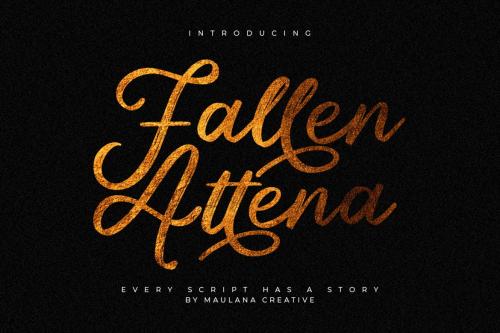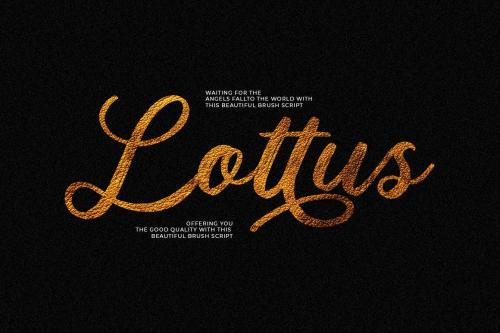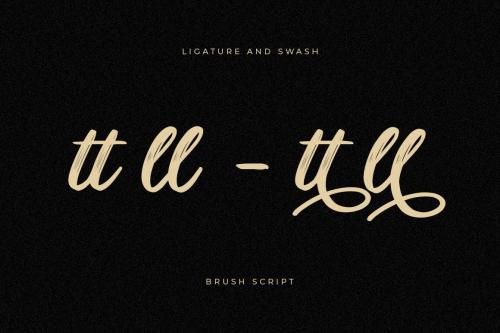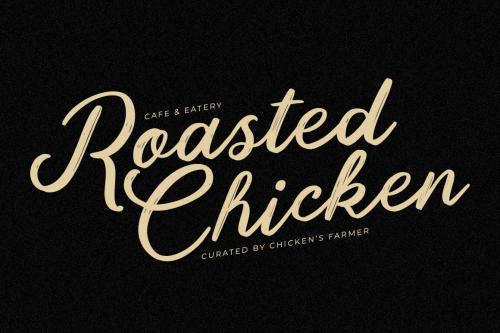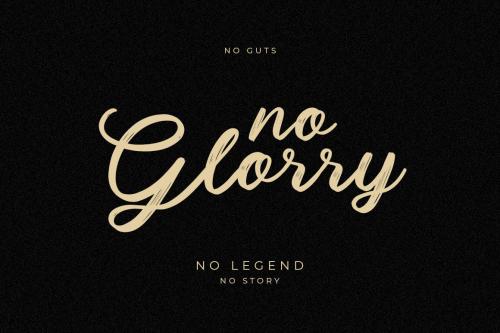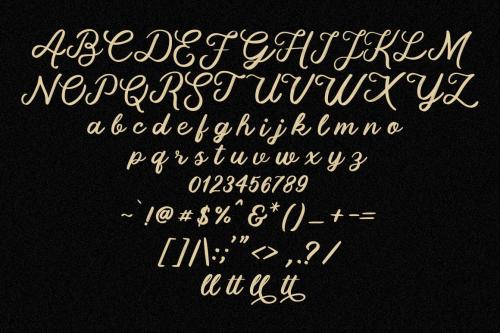
fallen atena - 刷字Font
Fallen Attena - Brush Font
Give your designs an authentic brush handcrafted feel. "Fallen Attena - Brush Font" is perfectly suited to signature, stationery, logo, typography quotes, magazine or book cover, website header, flyer, clothing, branding, packaging design and more. Include Ligature & Alternate.